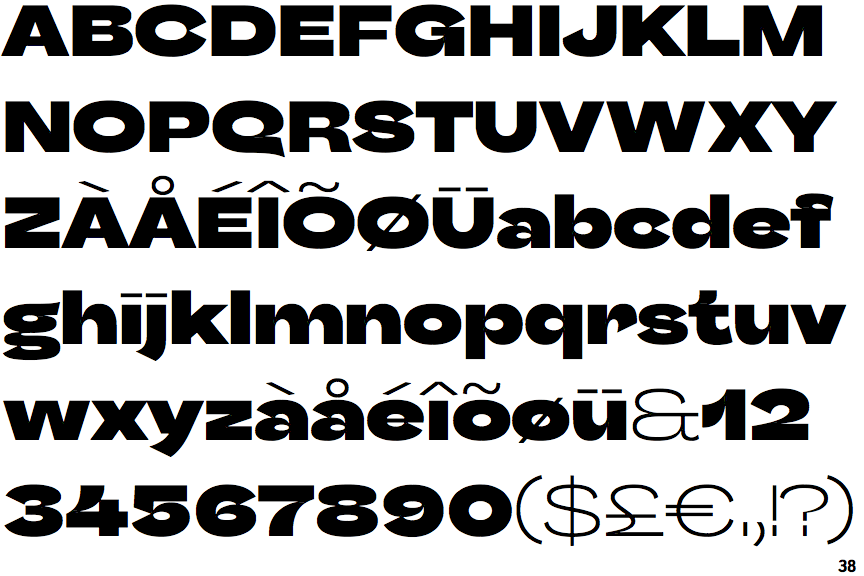
Sombra Font Free . See how to download sombra medium for free! Sombra sans serif font is an organic grotesque typeface with flourishing spirit. A great choice for highlighting your design elements. This font is a modern sans serif family from typemates that blends old and new generation sans serif fonts in the same pot. Sombra features seven weights that span from condensed light through extended black, before unveiling its most unique hue with poster. Sombra medium font free download. Fontstand allows trying sombra typeface for free or renting it for just a fraction of the regular price. It combines geometric structure with leafy,. Sombra sans serif font only available for personal use. Furthermore, it is packed with lots of typographic features. A great choice for highlighting your design elements. See how to download sombra for free! So, if you want to access more full features and license of this font, go get the premium.
It combines geometric structure with leafy,. This font is a modern sans serif family from typemates that blends old and new generation sans serif fonts in the same pot. See how to download sombra medium for free! A great choice for highlighting your design elements. See how to download sombra for free! Sombra sans serif font only available for personal use. Sombra sans serif font is an organic grotesque typeface with flourishing spirit. Sombra features seven weights that span from condensed light through extended black, before unveiling its most unique hue with poster. So, if you want to access more full features and license of this font, go get the premium. Furthermore, it is packed with lots of typographic features.
Sombra Font Free So, if you want to access more full features and license of this font, go get the premium. So, if you want to access more full features and license of this font, go get the premium. Fontstand allows trying sombra typeface for free or renting it for just a fraction of the regular price. Sombra features seven weights that span from condensed light through extended black, before unveiling its most unique hue with poster. A great choice for highlighting your design elements. See how to download sombra for free! It combines geometric structure with leafy,. Sombra sans serif font is an organic grotesque typeface with flourishing spirit. Sombra medium font free download. See how to download sombra medium for free! Sombra sans serif font only available for personal use. Furthermore, it is packed with lots of typographic features. This font is a modern sans serif family from typemates that blends old and new generation sans serif fonts in the same pot. A great choice for highlighting your design elements.
Identifont Sombra Poster Sombra Font Free Sombra sans serif font only available for personal use. A great choice for highlighting your design elements. This font is a modern sans serif family from typemates that blends old and new generation sans serif fonts in the same pot. See how to download sombra medium for free! Sombra features seven weights that span from condensed light through extended black,. Sombra Font Free.
Sombra 001.000 Fonts Free Download Sombra Font Free Fontstand allows trying sombra typeface for free or renting it for just a fraction of the regular price. A great choice for highlighting your design elements. This font is a modern sans serif family from typemates that blends old and new generation sans serif fonts in the same pot. So, if you want to access more full features and license. Sombra Font Free.
Sombra Font Family from TypeMates Sombra Font Free Furthermore, it is packed with lots of typographic features. See how to download sombra medium for free! This font is a modern sans serif family from typemates that blends old and new generation sans serif fonts in the same pot. Sombra features seven weights that span from condensed light through extended black, before unveiling its most unique hue with poster.. Sombra Font Free.
Sombras Fuente 1001 Free Fonts Sombra Font Free See how to download sombra medium for free! Furthermore, it is packed with lots of typographic features. Sombra sans serif font only available for personal use. Sombra features seven weights that span from condensed light through extended black, before unveiling its most unique hue with poster. Sombra medium font free download. Sombra sans serif font is an organic grotesque typeface. Sombra Font Free.
Long shadow font retro boldness 3d alphabet old Vector Image Sombra Font Free See how to download sombra for free! A great choice for highlighting your design elements. Sombra features seven weights that span from condensed light through extended black, before unveiling its most unique hue with poster. Sombra medium font free download. See how to download sombra medium for free! So, if you want to access more full features and license of. Sombra Font Free.
Sombra Font Dafont Free Typeface, Brush font, Dafont Sombra Font Free Furthermore, it is packed with lots of typographic features. Sombra sans serif font only available for personal use. Sombra sans serif font is an organic grotesque typeface with flourishing spirit. So, if you want to access more full features and license of this font, go get the premium. Sombra medium font free download. A great choice for highlighting your design. Sombra Font Free.